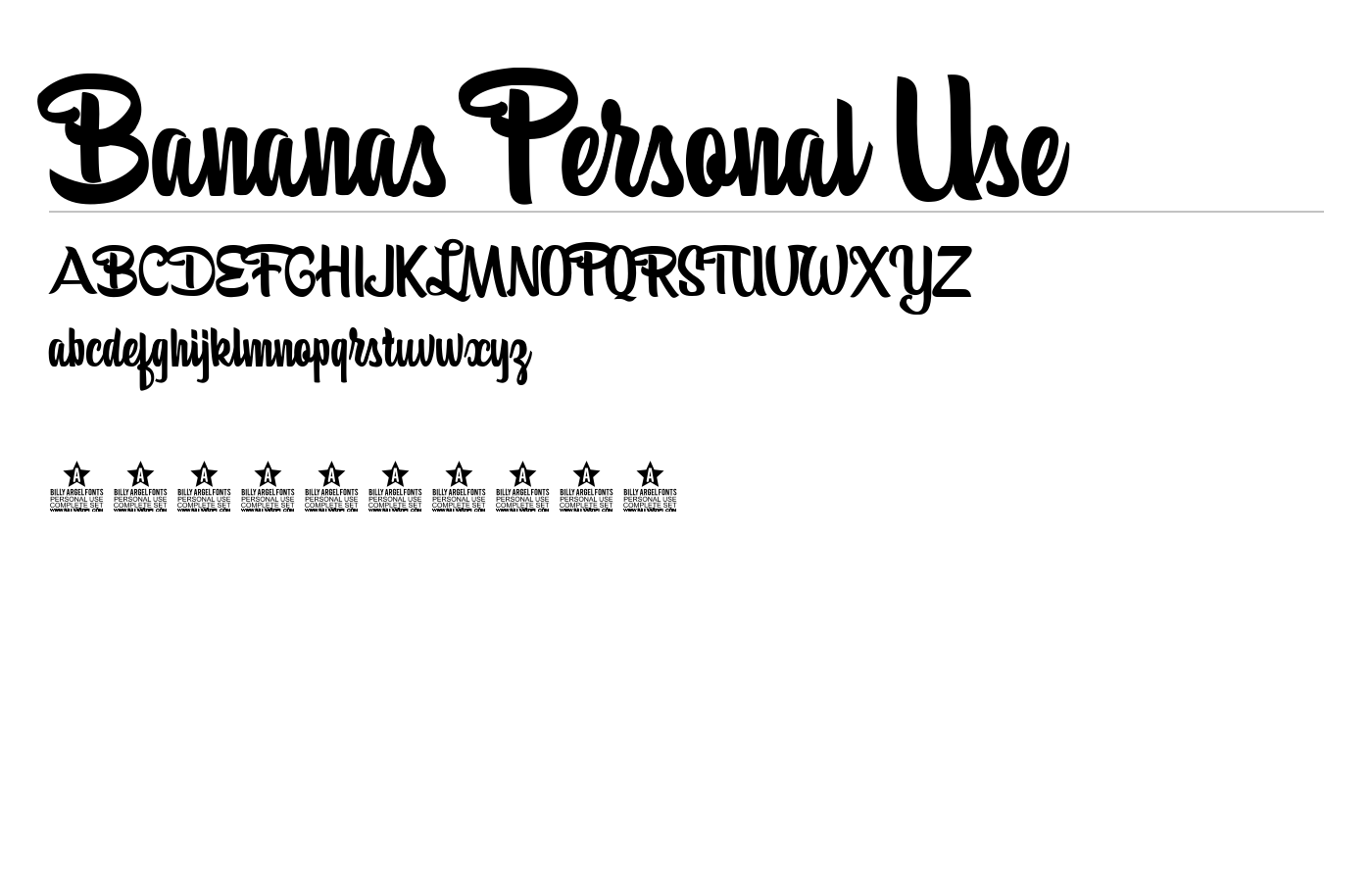
Bananas Personal Use is a playful, bold script font with a lively, hand-drawn style that features thick, rounded strokes and whimsical letterforms. Its energetic and casual vibe makes it perfect for creative projects, logos, and headlines that want to convey fun and friendliness. This font works especially well in informal branding, packaging, and social media where a distinctive, approachable personality is desired.
Bananas Personal Use Font
About Bananas Personal Use Font